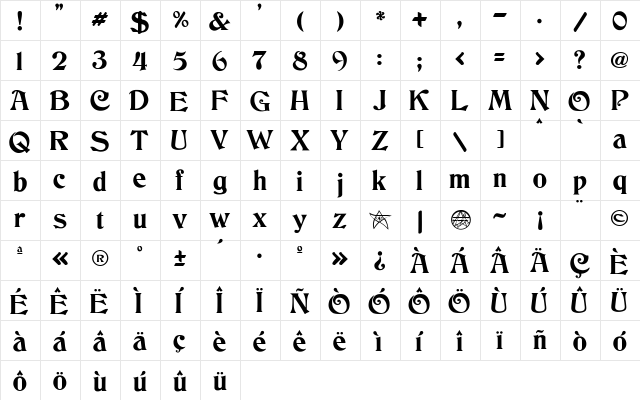
JMH Cthulhumbus UG Regular Font Preview
JMH Cthulhumbus UG Regular
Design Context for JMH Cthulhumbus UG Typeface
JMH Cthulhumbus UG is a composed and adaptable typeface that performs quietly and consistently across a wide range of design contexts.
Pro Tip: Use JMH Cthulhumbus UG in both headline and body roles to test its range before committing to a single application.